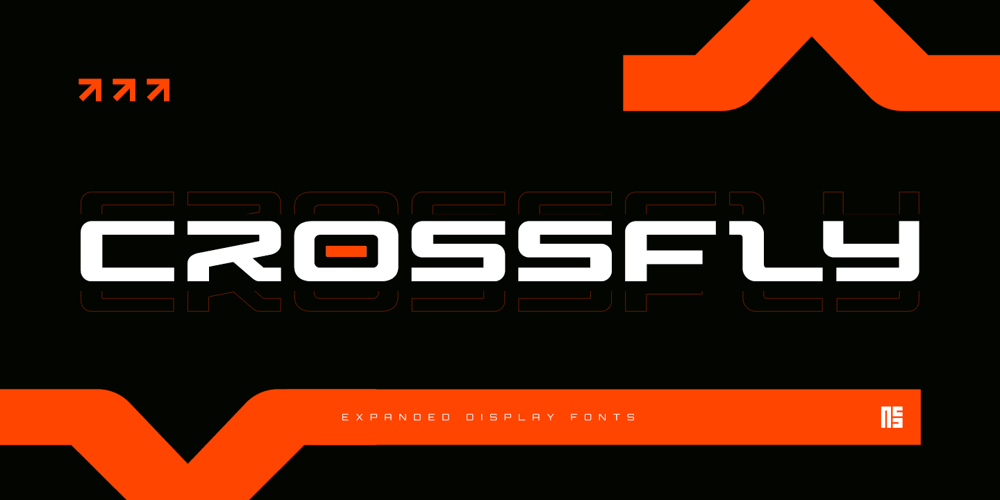
Crossfly Font Family was designed by Toni Setiawan and published by Namara Creative Studio. Crossfly contains 2 styles and family package options. Crossfly – Modern expanded display fontAn exciting typeface that captures the spirit of technology, speed, and movements. Distinctive characteristics make a great choice for gaming/sports logos, branding identity, posters, apps, or any design project that demands a futuristic and energetic.Features : Modern, Sporty & Techno Wide Theme Font Alternates, Ligatures & Multilingual Support PUA Encoded | no special software needed to access extra characters. Feel free to get in touch if you have any questions and inquiries.Thanks for watchingNote :To be able to access ligatures and the alternate letters, please make sure the software you are using can support opentype features.